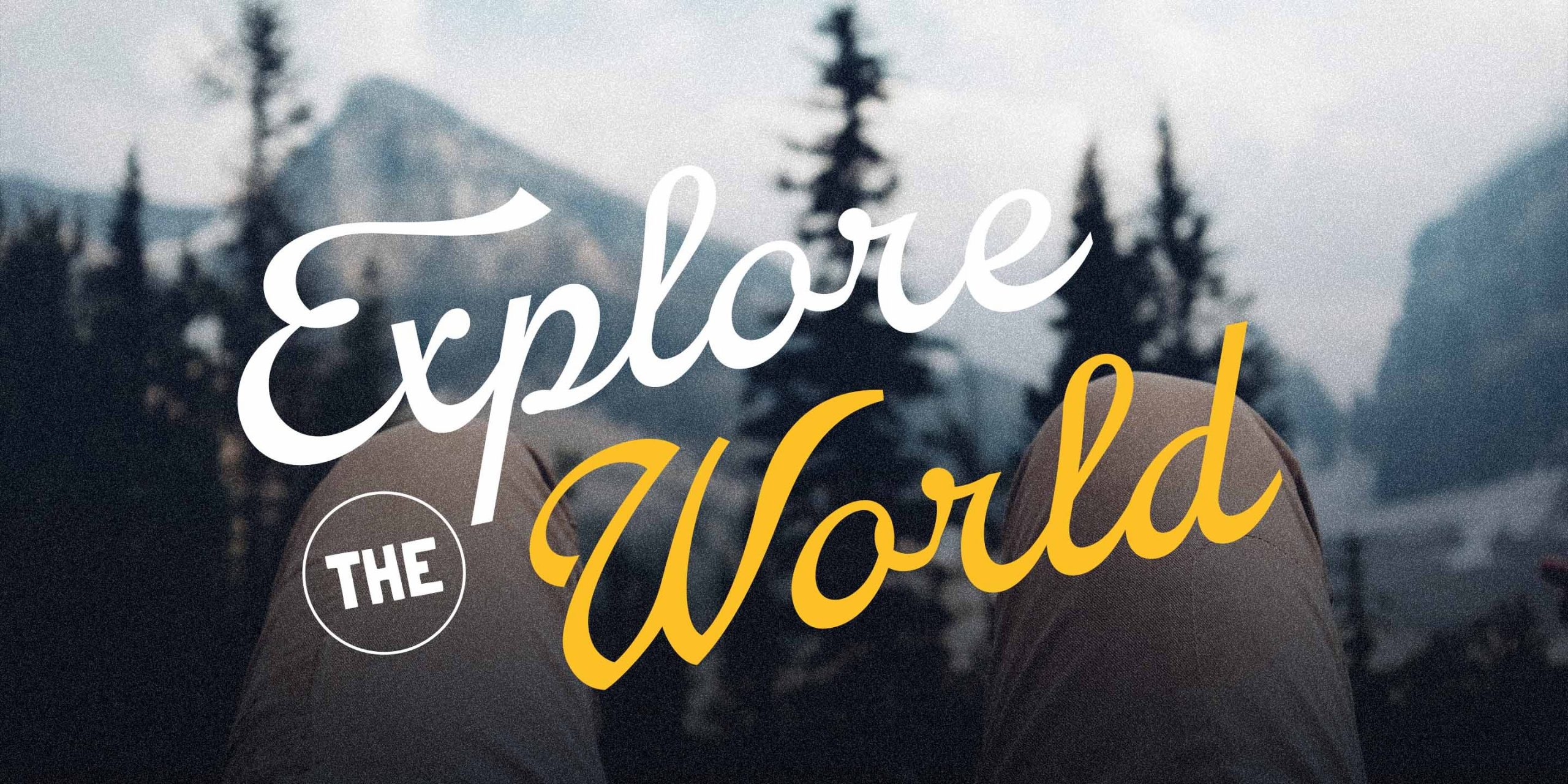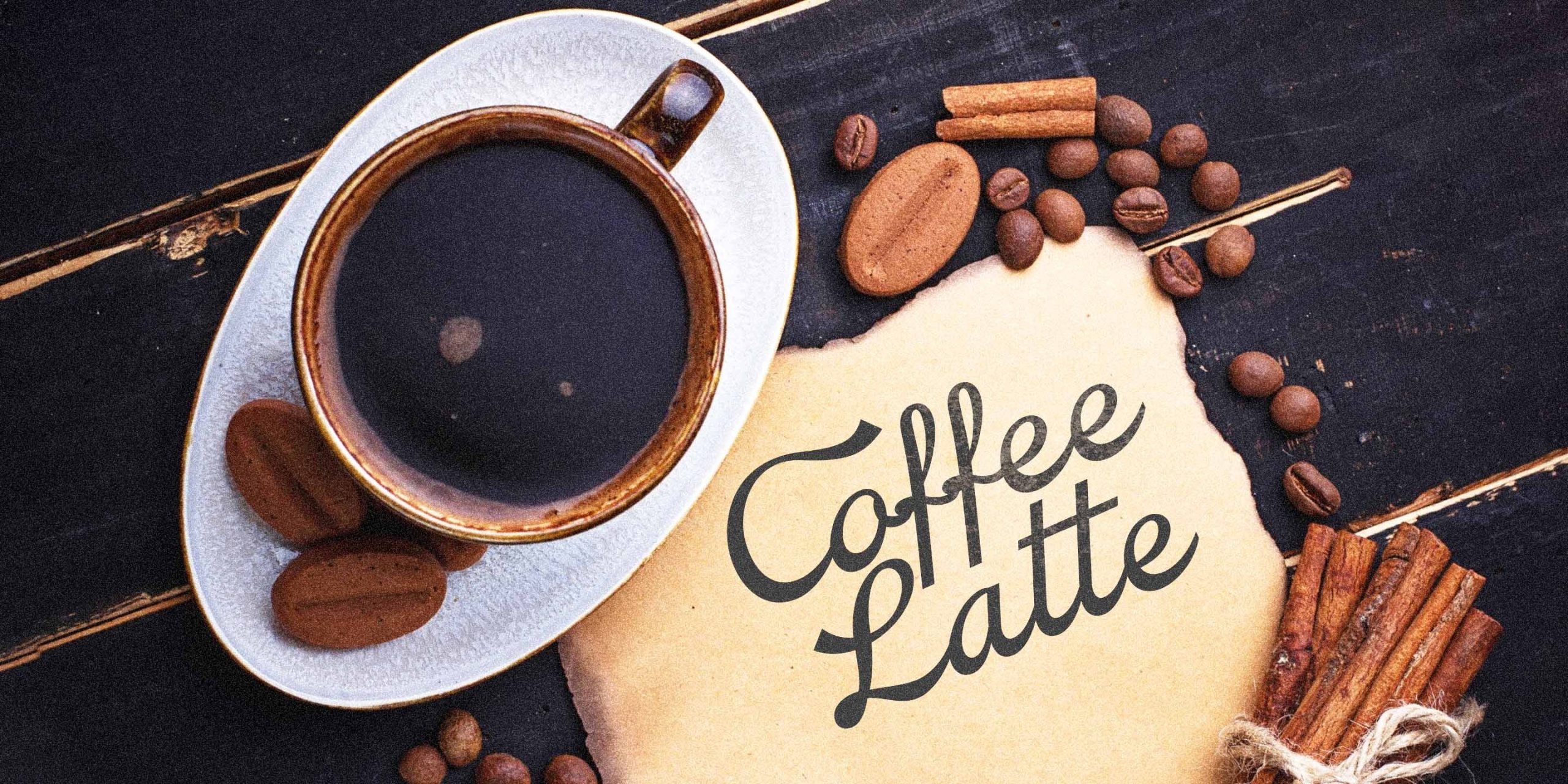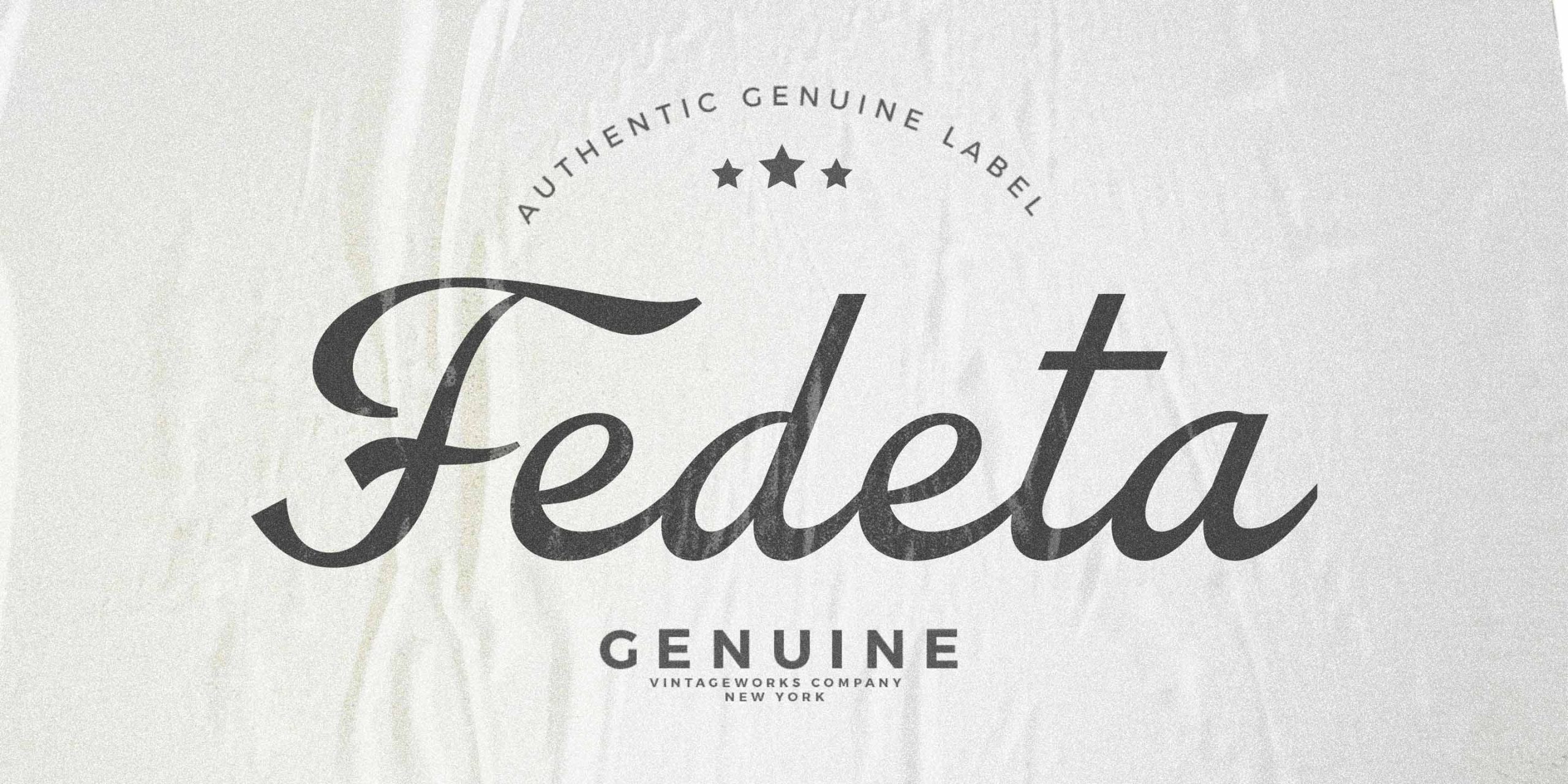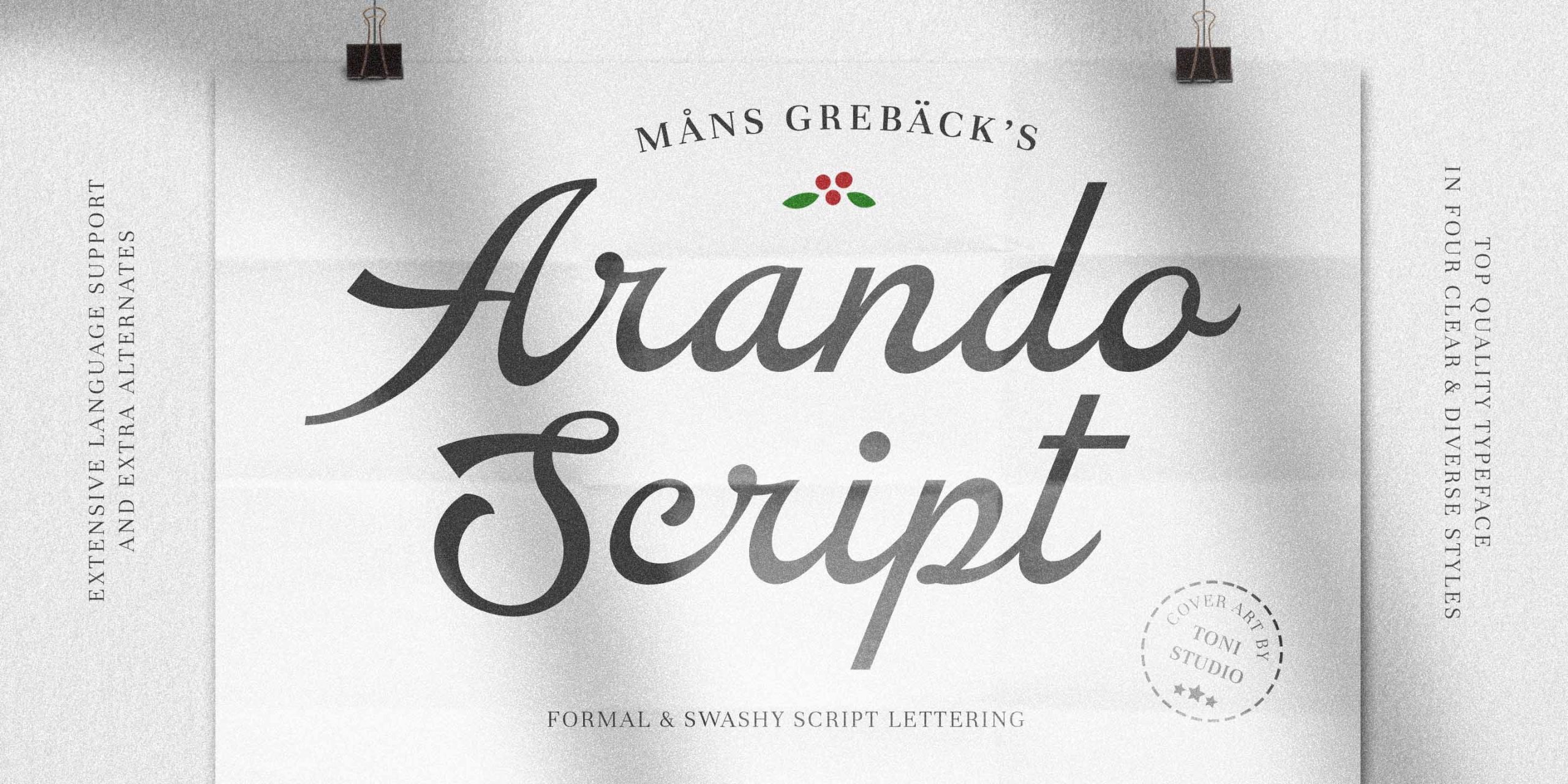
Arando Script Font
This is a bold typeface inspired by the commercial poster style of the 70’s. Drawn and created by Mans Greback in 2022, it is perfect for a formal restaurant headline or feminine logotype design. Arando Script is provided in four styles: Regular, Bold, Italic and Bold Italic, which compliment each other and maximise your options and design experience. The font is built with advanced OpenType functionality and has a guaranteed top-notch quality, containing stylistic and contextual alternates, ligatures and more features; all to give you full control and customizability. It has extensive lingual support, covering all Latin-based languages, from Northern Europe to South Africa, from America to South-East Asia. It contains all characters and symbols you’ll ever need, including all punctuation and numbers.